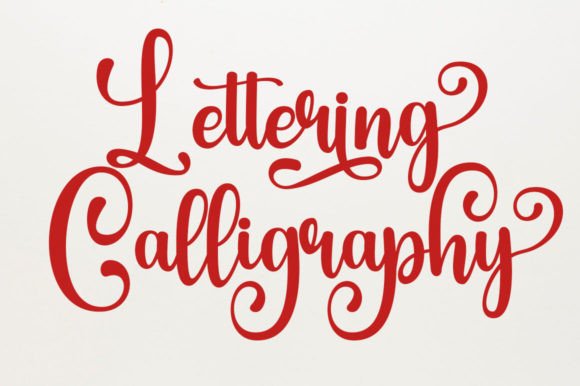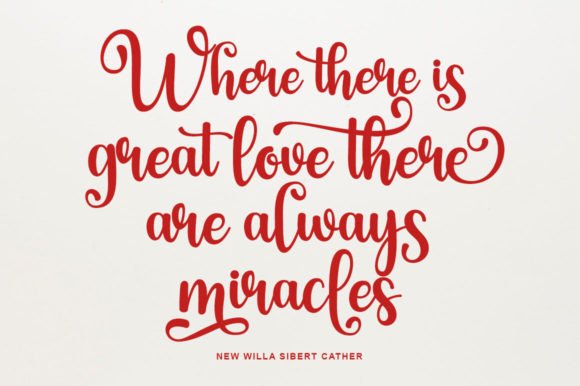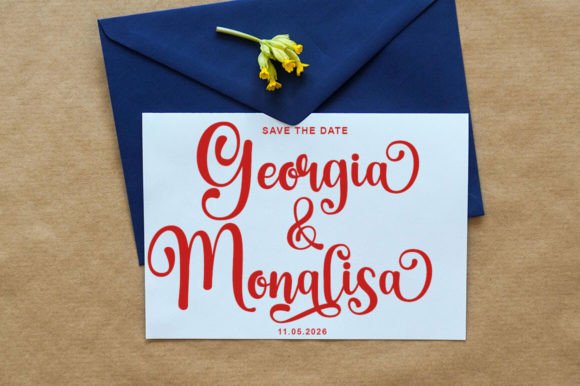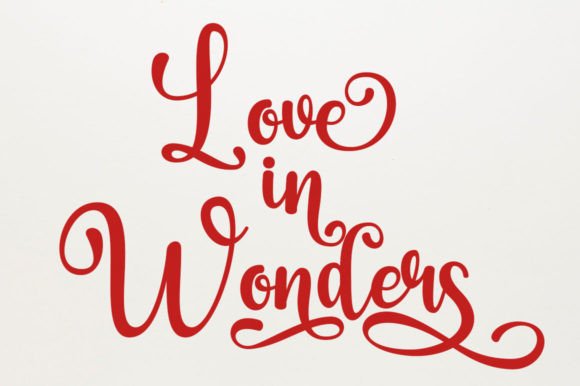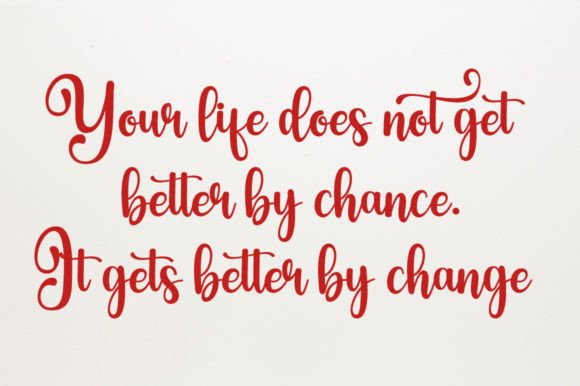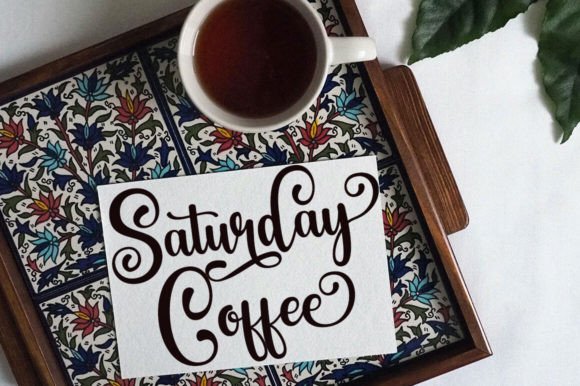
Introduction to Charistina Font
Charistina script is a modern calligraphy design including Regular.
This font is casual and beautiful with swashes Can be used for various purposes.
Key Features of Charistina Font
Why Choose Charistina Font?
Charistina Font offers exceptional quality and versatility, making it a valuable addition to your design toolkit. Whether you’re creating for personal projects or commercial use, Charistina Font delivers professional results.